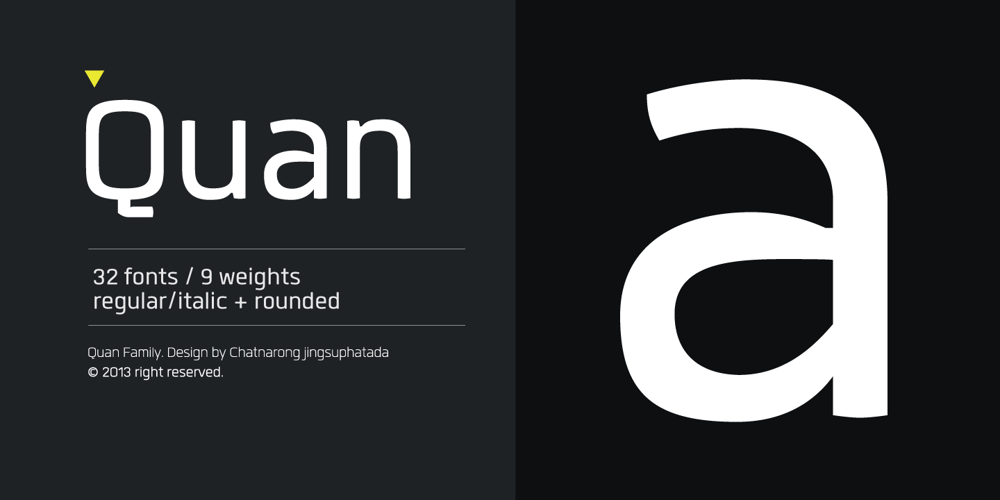
Quan Font Family was designed by Chatnarong Jingsuphatada and published by Typesketchbook. Quan contains 32 styles and family package options. The complete Quan font family designed by Chatnarong Jingsuphatada of Bangkok-based Typesketchbook consists of a very usable, clean and modern sans typeface and a rounded sub-family. The font looks clean and geometric but it’s designed with unusual stylistic features to give the Quan font a special and unique touch. The complete Quan type family includes eight weights with obliques and rounded versions for each of them all in all 32 fonts.